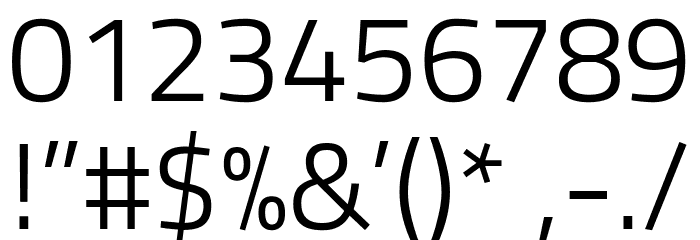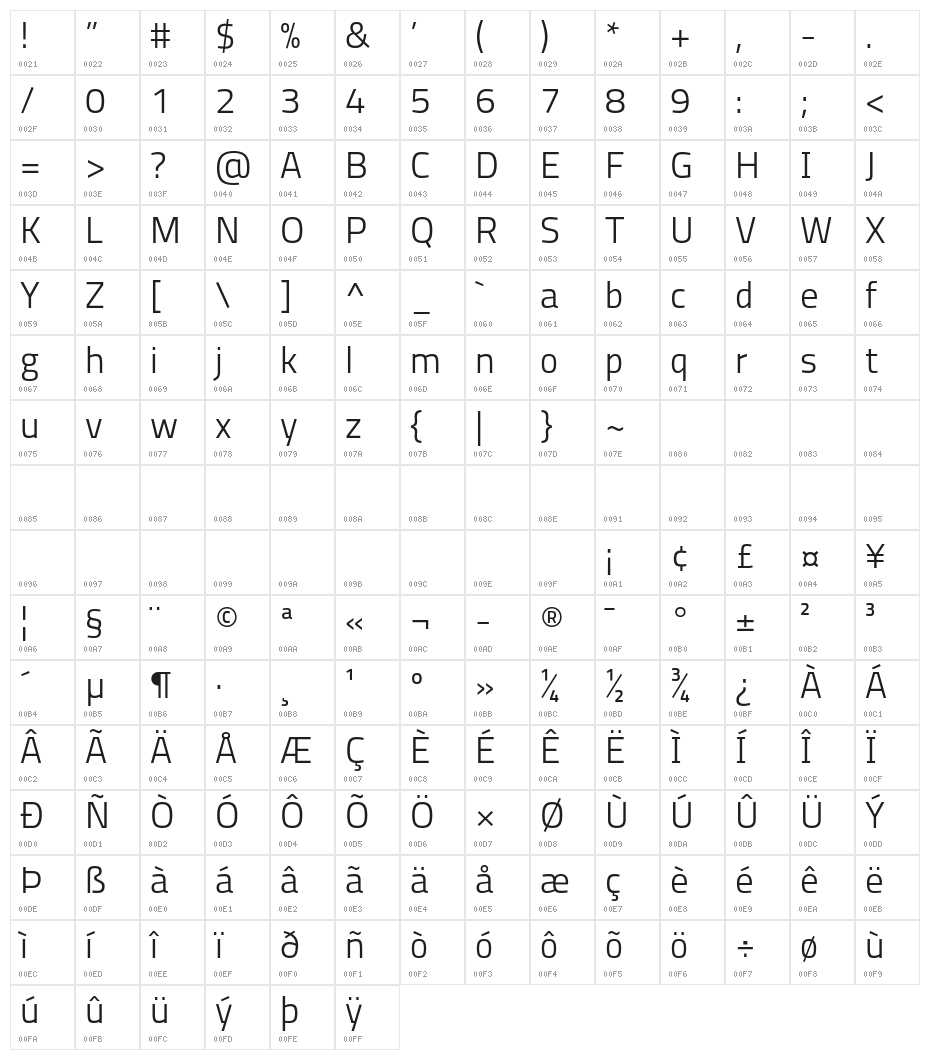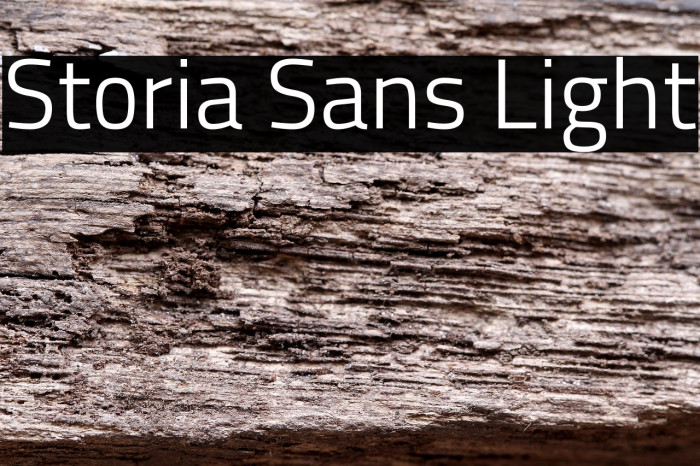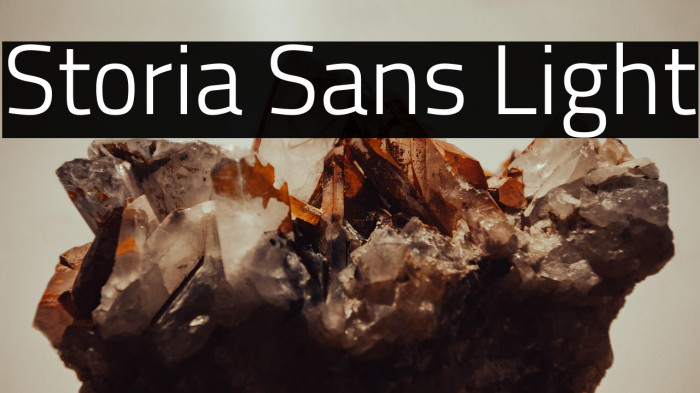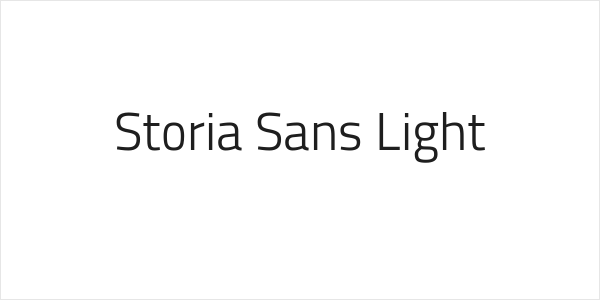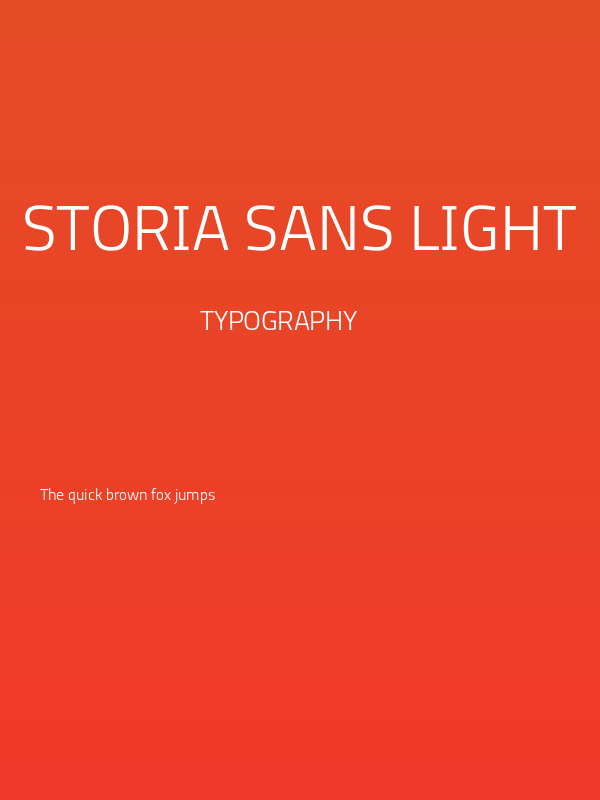
Storia Sans Light Font
Storia Sans Light Description
This font exhibits a clean and modern sans-serif style, characterized by its light weight and balanced proportions. The letterforms are sleek and streamlined, with a uniform stroke width that provides a harmonious and contemporary appearance. The characters are well-spaced, ensuring excellent readability across various sizes. The design is minimalist, making it versatile for a wide range of applications. Its simplicity and elegance make it suitable for both digital and print media, offering a professional and polished look.
Use CaseHeadlines, Body text, Logos
Proposed ProjectsIdeal for corporate branding, website design, user interfaces, and editorial layouts.